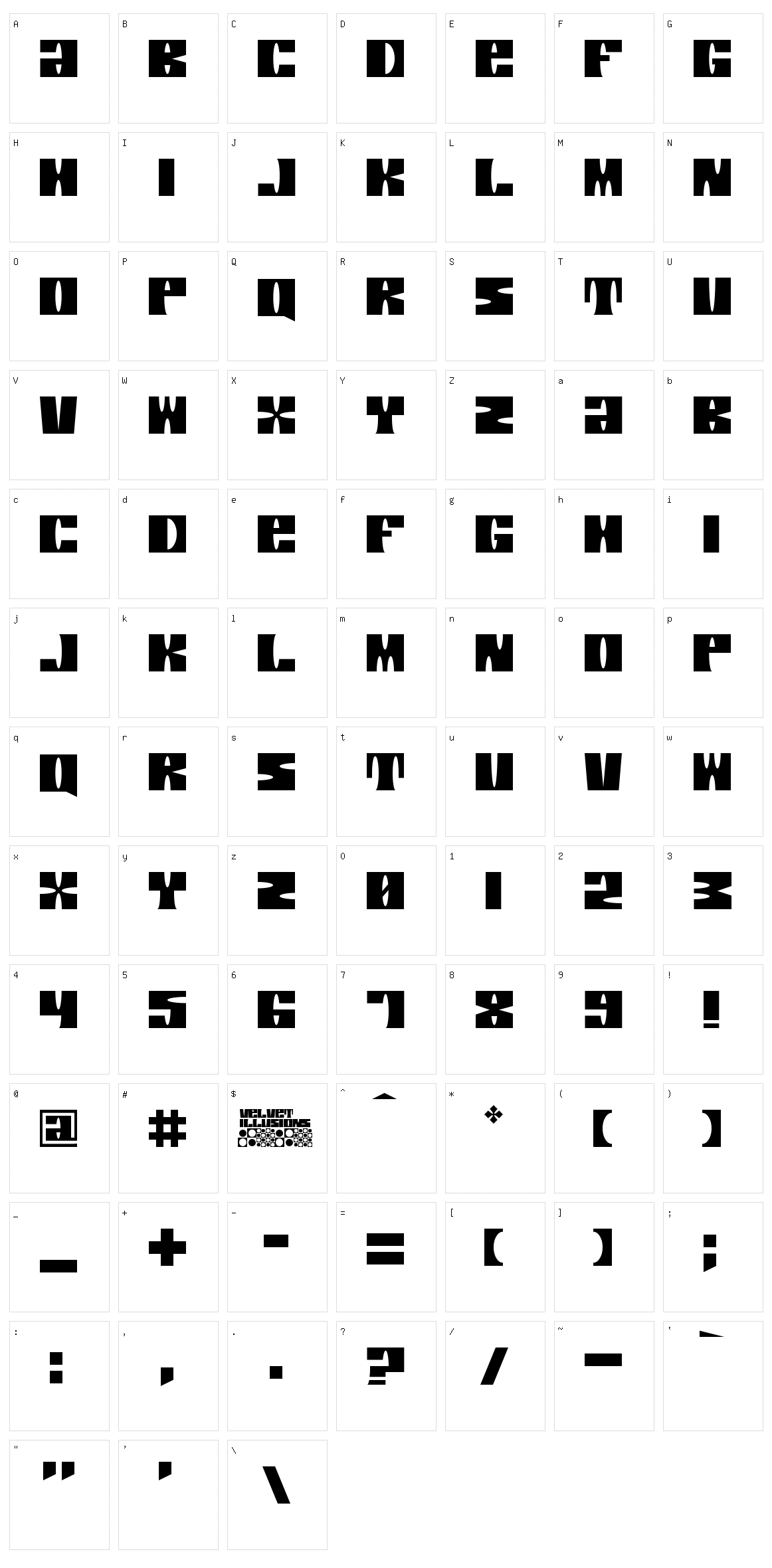
Velvet Illusions
The free font Velvet Illusions is carefully designed by Ipanema Gráfica / Rubén Prol, showcasing a thoughtful balance of creativity and usability and falls under the Groovy font style. When you download the ZIP file, it contains only 5.05 KB of font files, making it lightweight and quick to download. Please review the license details below to understand permitted usage and distribution rights. If license information is not available, we recommend using this font for personal projects only or contacting the author directly for commercial usage permissions.